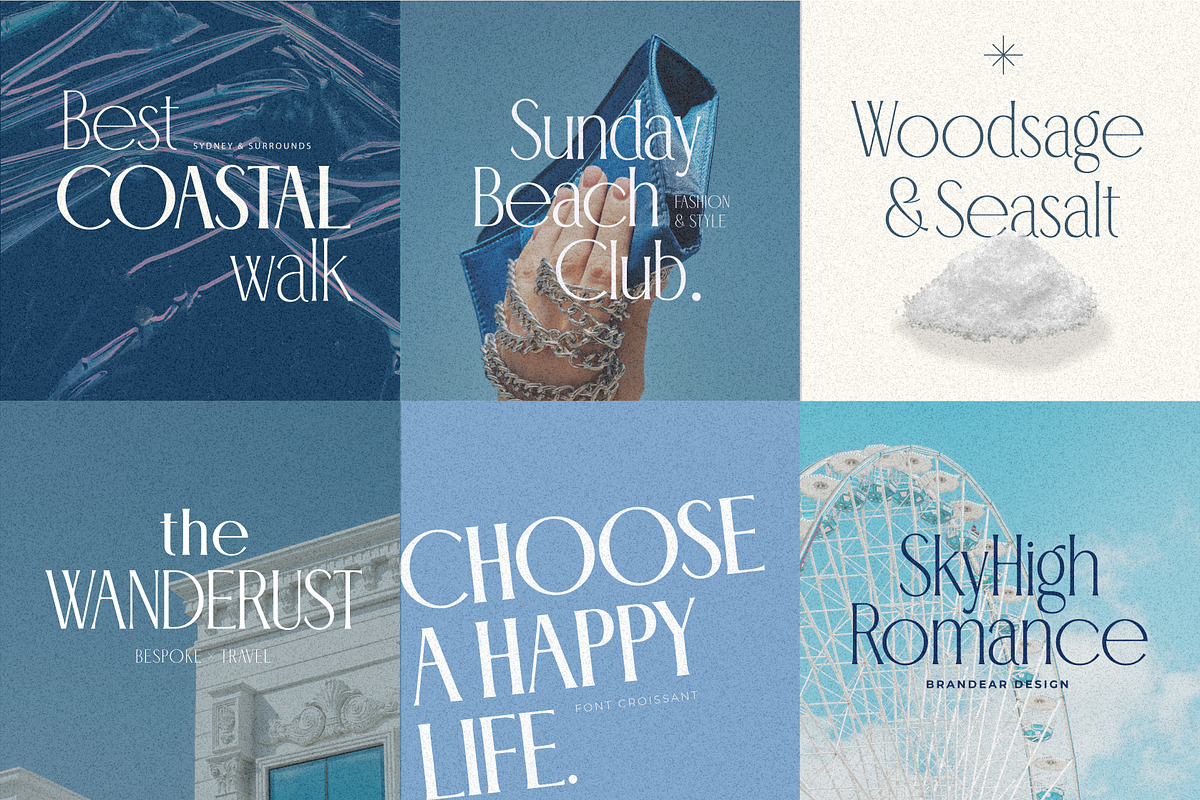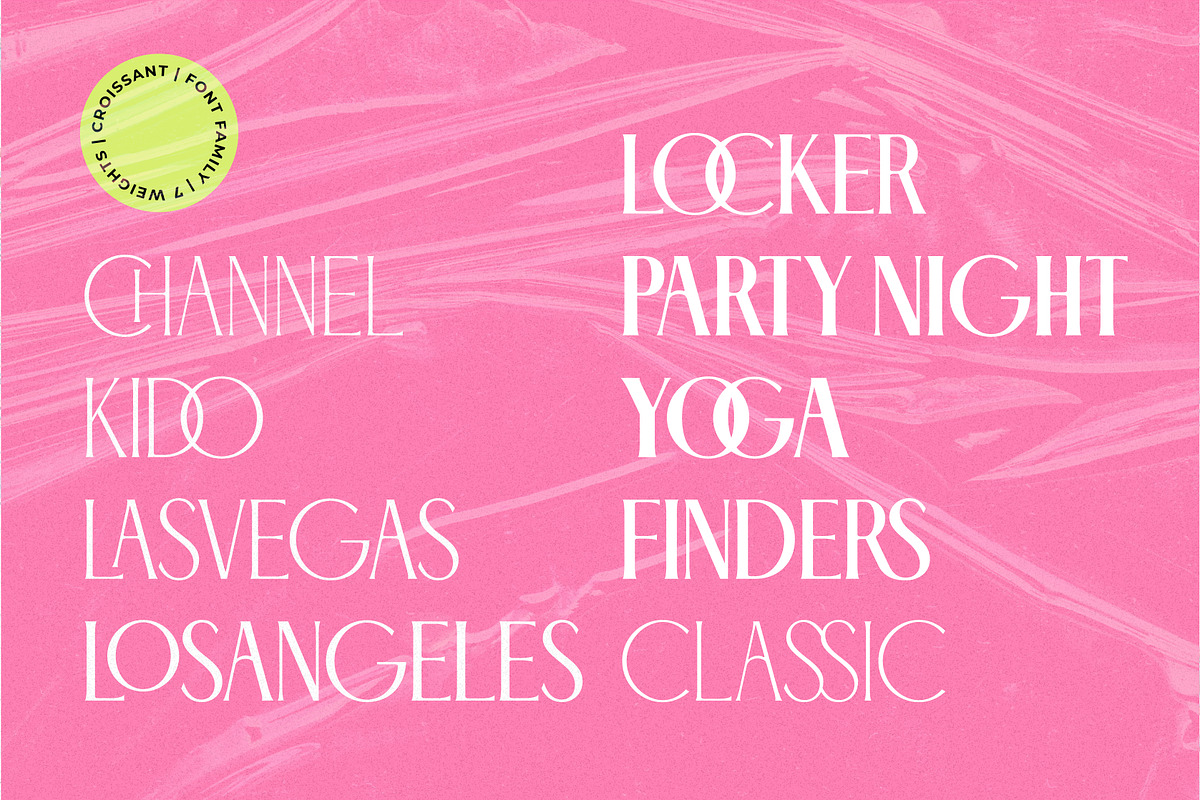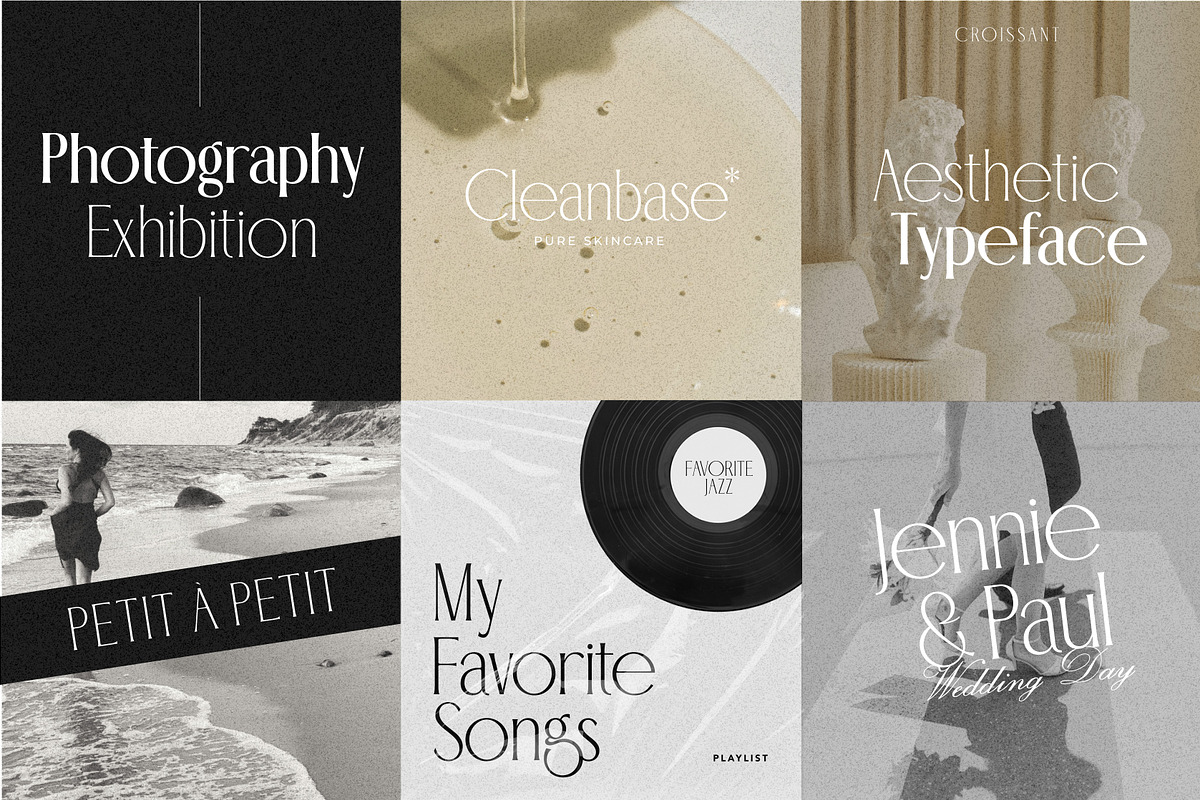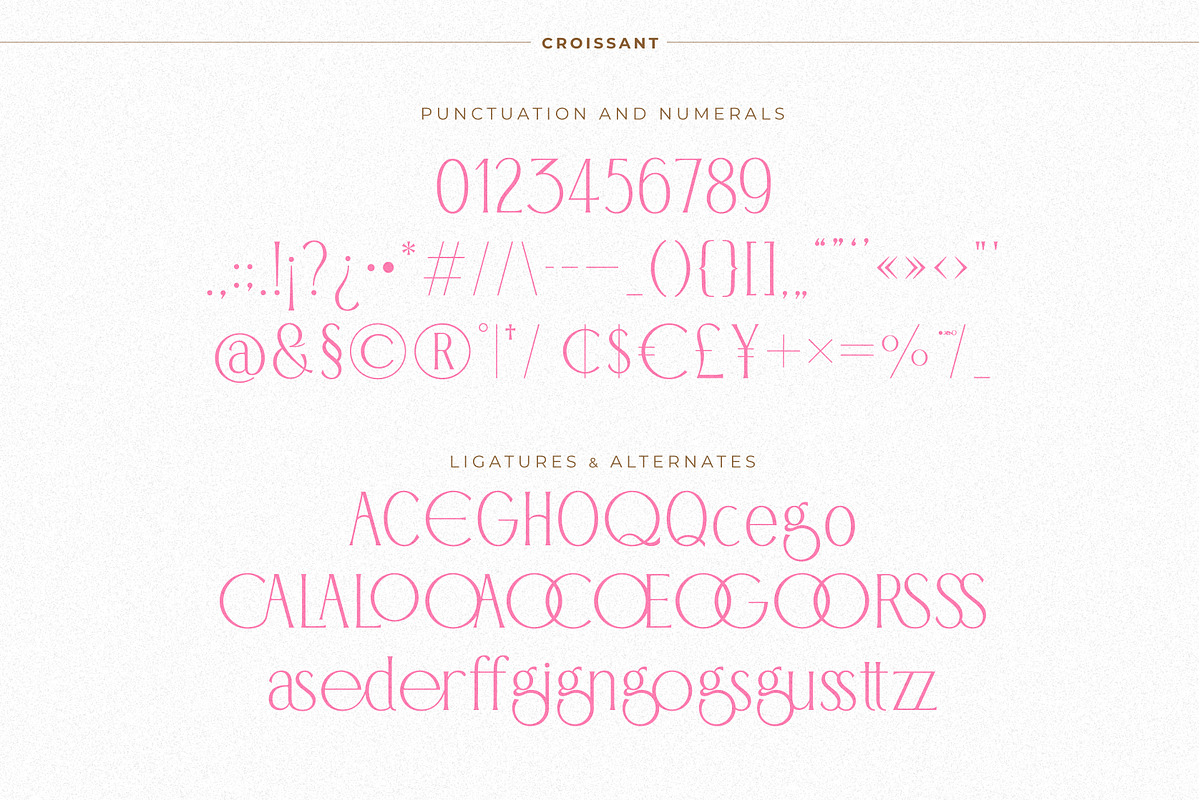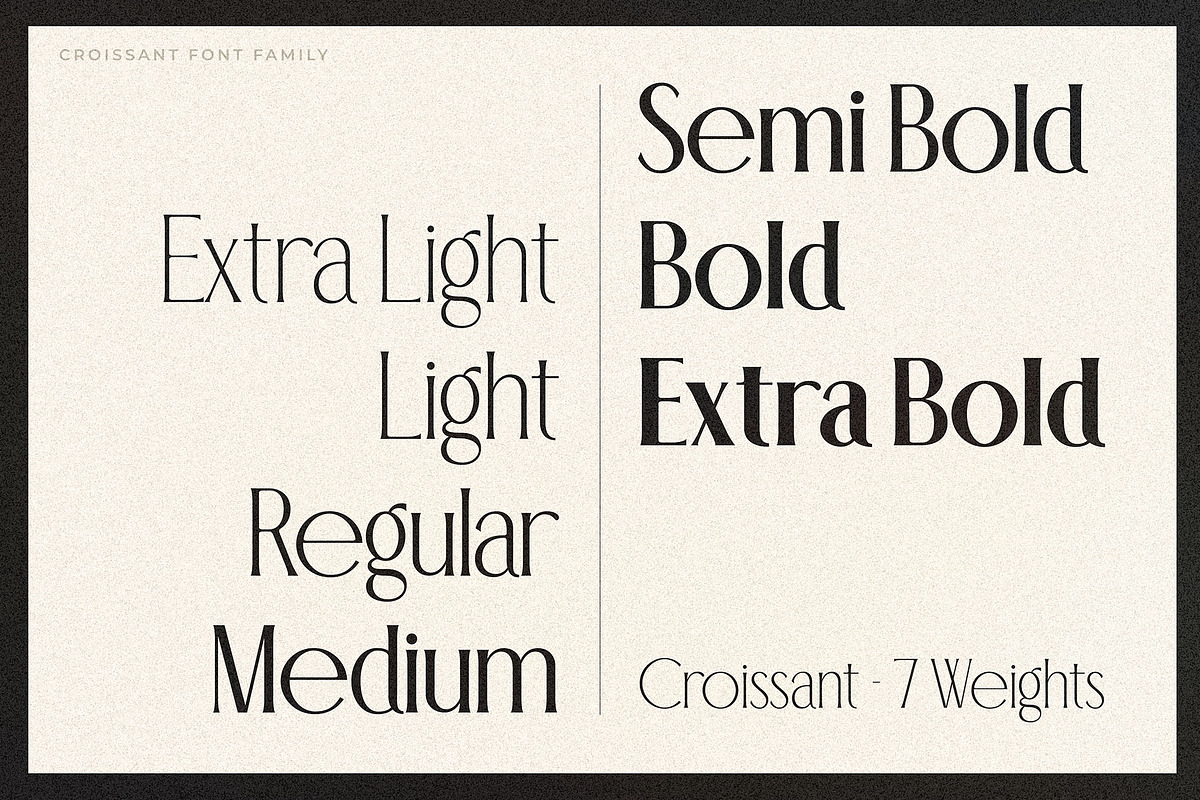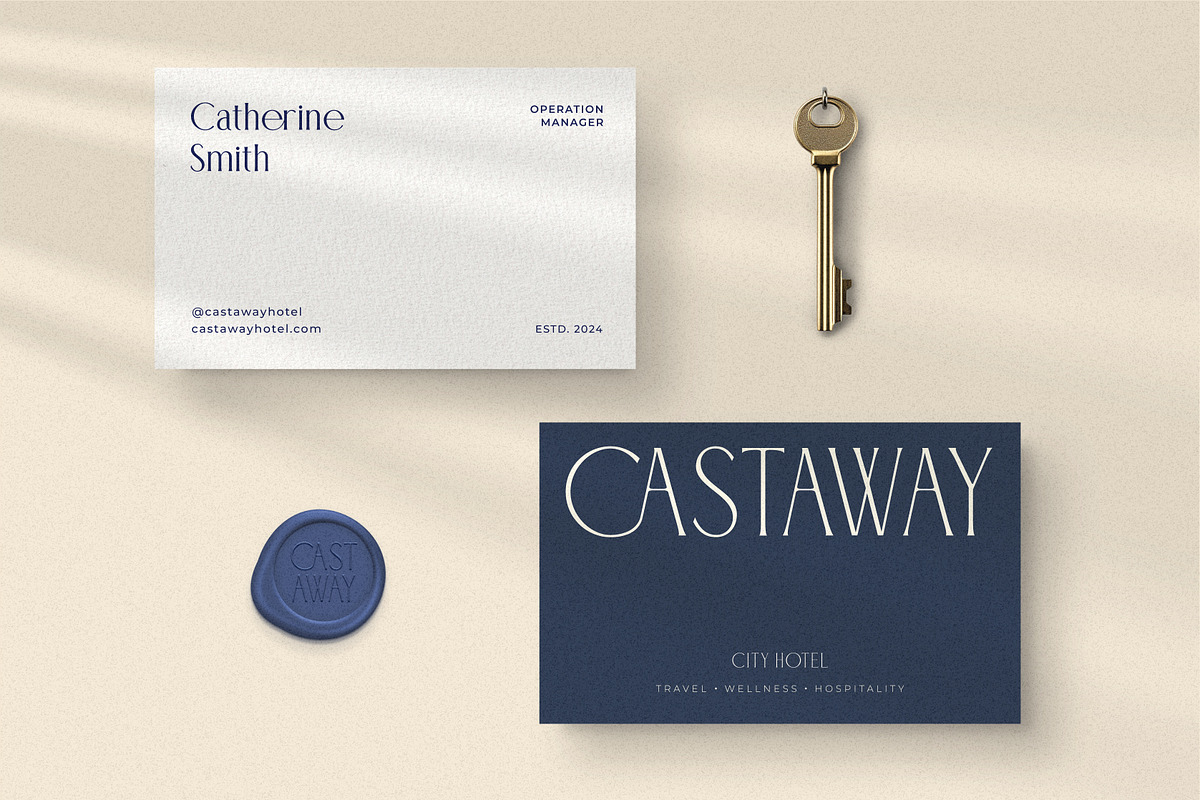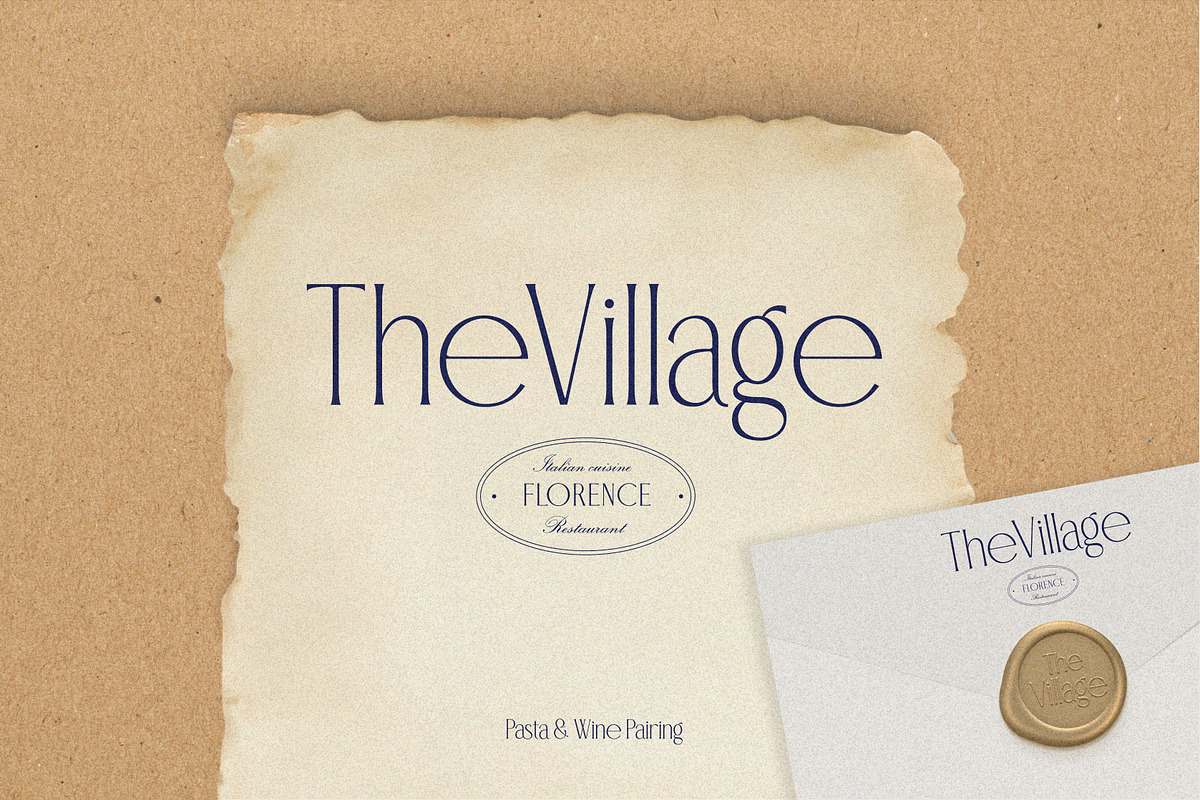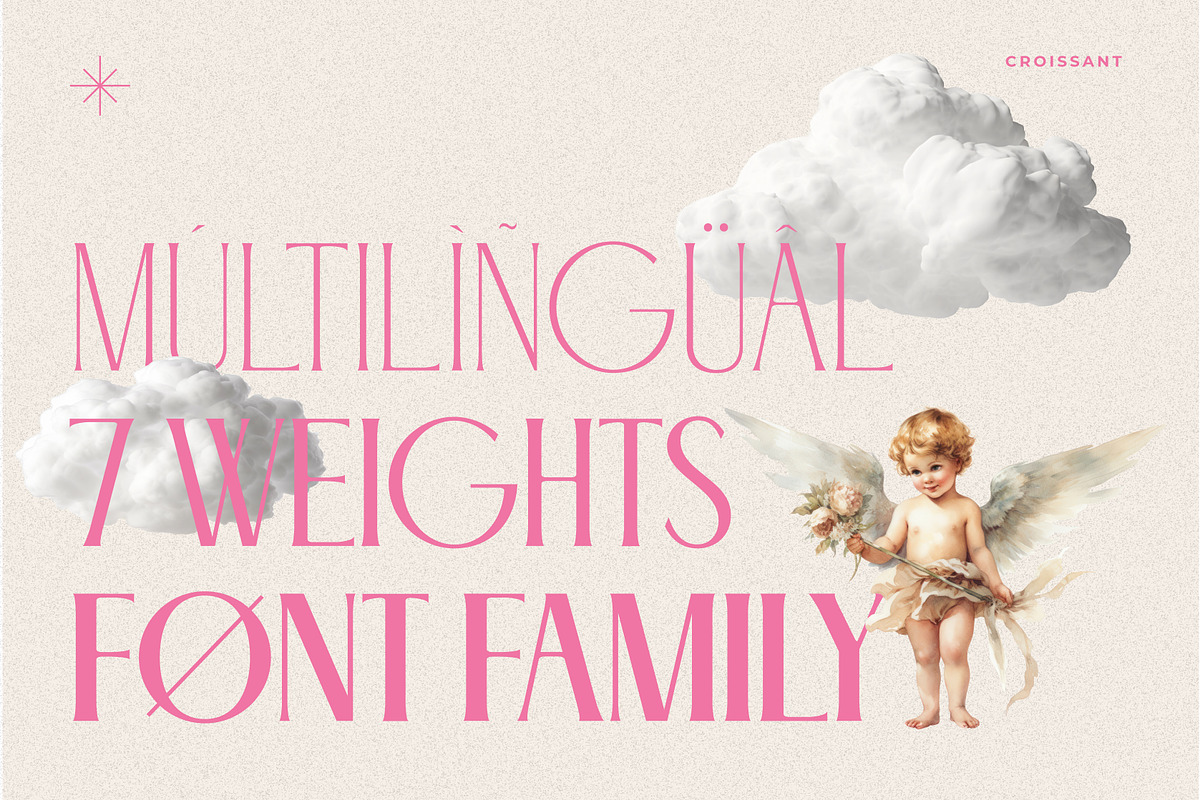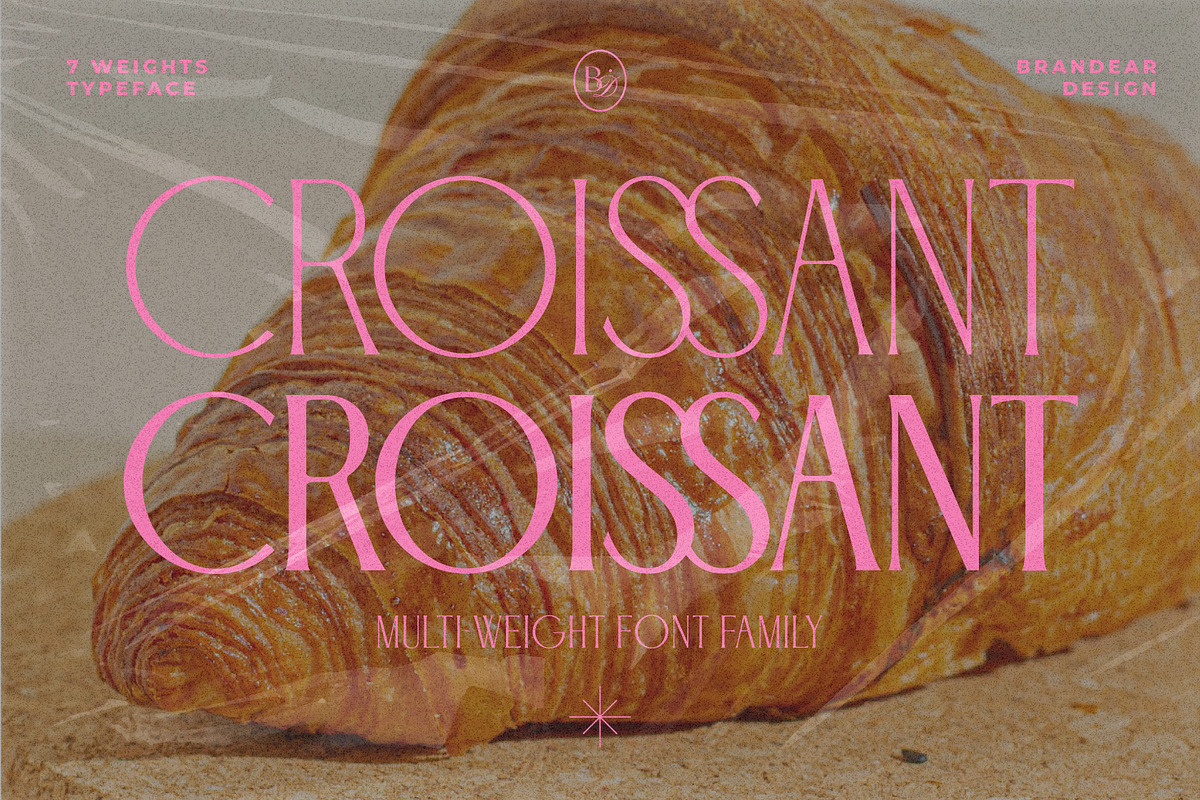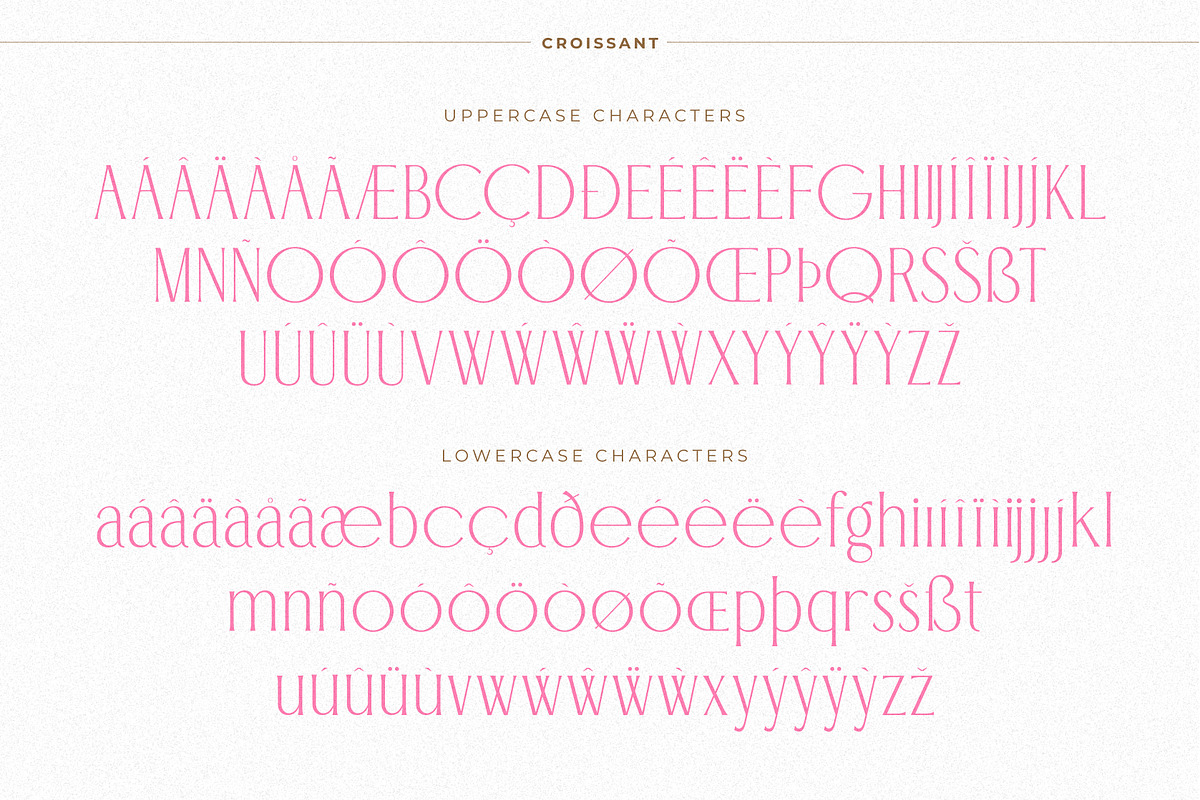
BD Croissant | 7 weights
Introducing Croissant - a sophisticated serif font that embodies calm elegance. Crafted with meticulous attention to detail, Croissant features a multi-weight design with 7 beautiful variations.
Inspired by timeless design elements, this font exudes a tranquil charm that is perfect for both print and digital applications. Whether used for elegant invitations, luxurious branding, or refined editorial content, Croissant’s graceful curves and balanced proportions create a visually appealing aesthetic.
From delicate light weights to bolder styles, Croissant adapts seamlessly to your creative vision. Use it to enhance your headlines, subheadings, or body text, and elevate the overall sophistication of your designs. With Croissant, you’ll achieve a polished and cohesive look that captivates and inspires.
- Multi-weights : 7Weights
- Multi Language support
✴︎ Language supported : Danish, English, Filipino, French, German, Indonesian, Italian, Low German, Luxembourgish, Norwegian Bokmål, Norwegian Nynorsk, Portuguese, Spanish, Swedish, Swiss German, Icelandic, Dutch